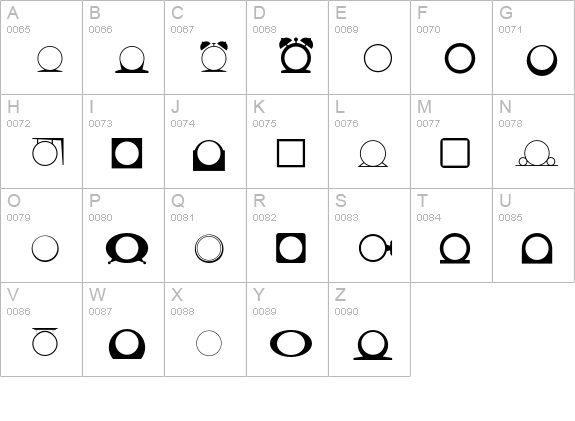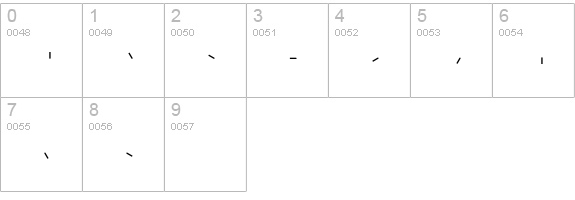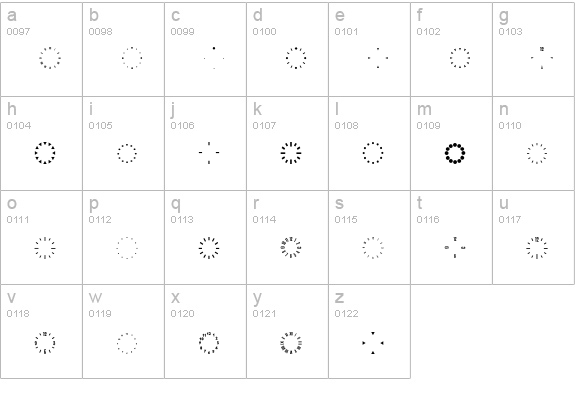
AnytimeNow Font Details
Introducing AnytimeNow font, a versatile and modern typeface that is perfect for a wide range of design projects. With its clean lines and elegant curves, this font exudes a sense of sophistication and style. AnytimeNow is the ideal choice for branding, logos, posters, and more. The best part? AnytimeNow font is completely free to download at FontsMarket.com! This means you can add this beautiful font to your collection without any cost. Don't miss out on the opportunity to elevate your designs with the timeless charm of AnytimeNow font. Download it today and let your creativity shine!